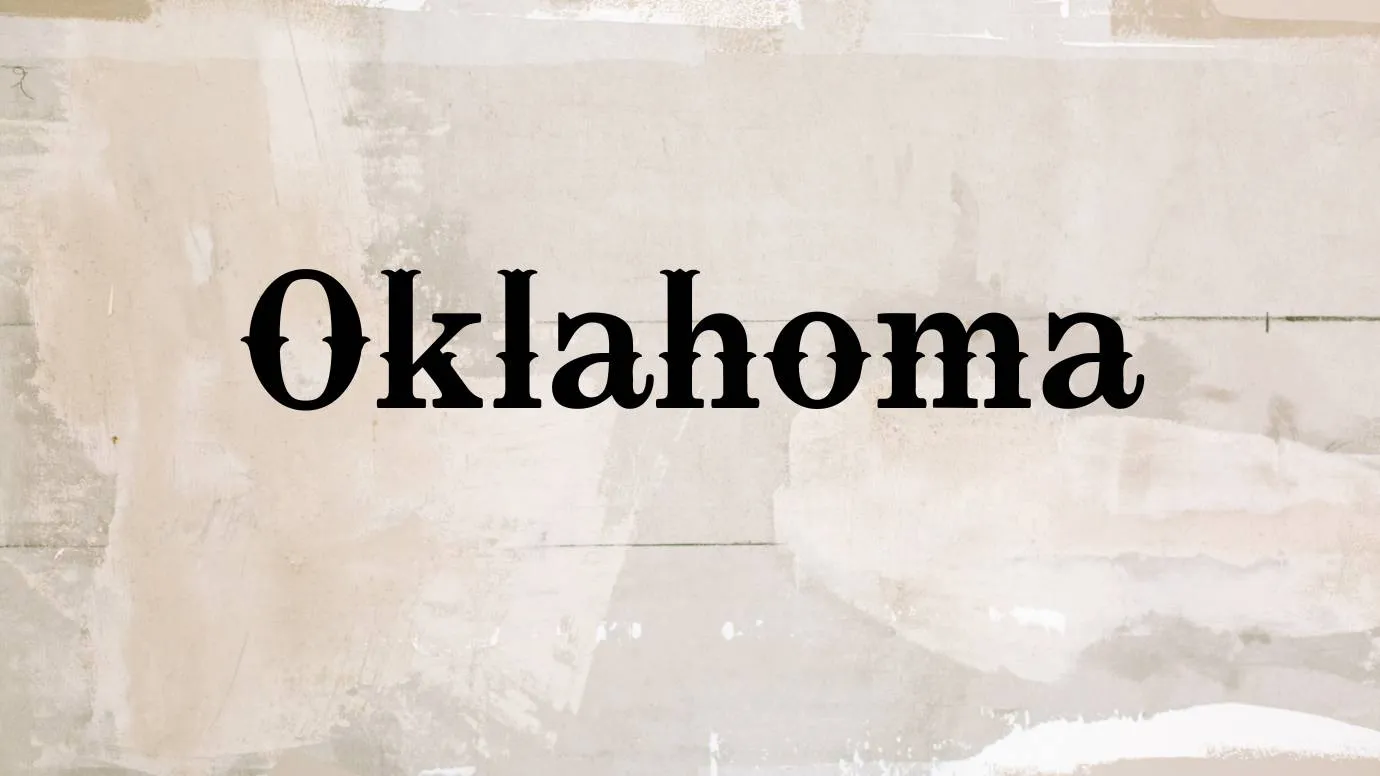
Oklahoma Font
Oklahoma Font Family was mainly designed by Ingo Krepinsky and after this released by Die Typonauten. This awesome texture is classified as the category of slab serif family of fonts. You would also check the generator tool of this fancy typeface and use it for your graphic display designs. Another Binggo Wood font is a slab serif typeface that is similar to this typography. This typography is available in OTF, TTF, and WOFF file structures.
NameOklahoma Font
TypeSlab Serif
DesignerIngo Krepinsky
FoundryDie Typonauten
Who owns the Oklahoma Font?
Ingo Krepinsky is the main and original designer of this typeface and this texture was released by Die Typonauten.
Can I use Oklahoma Font for logo designs?
Yes, this classic typeface is perfect for use in different types of logo designs. Many organizations use this typeface for their logo designs.